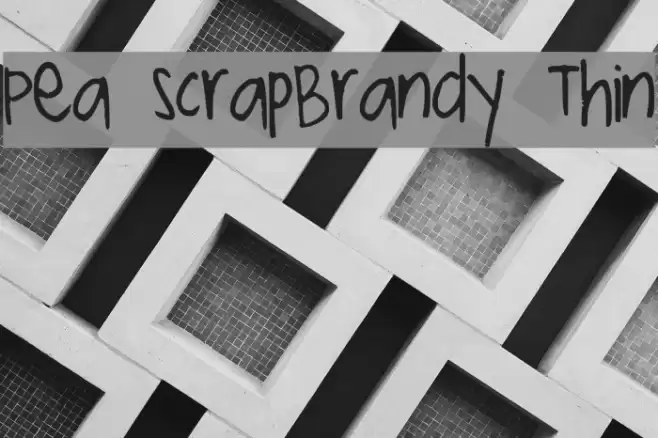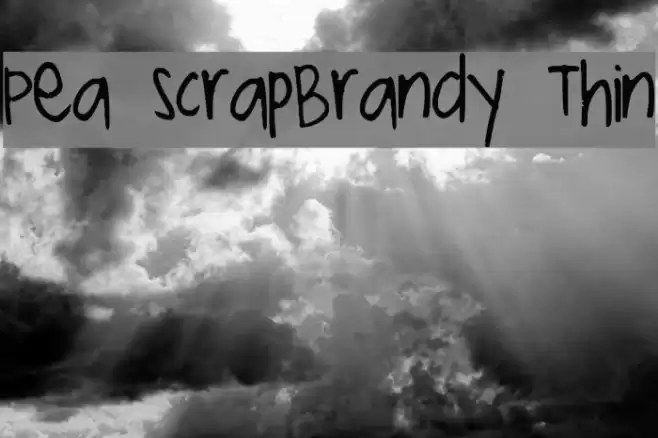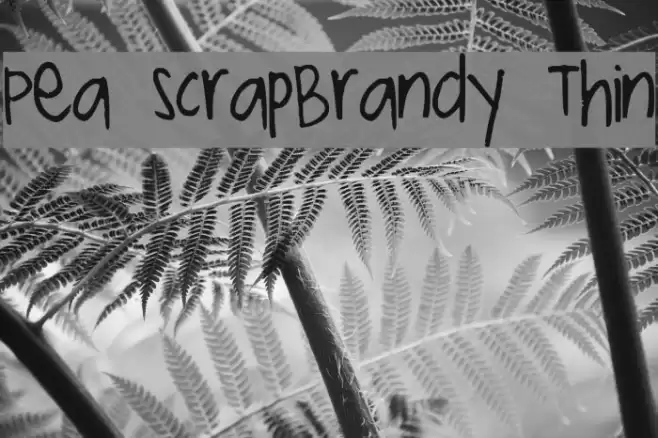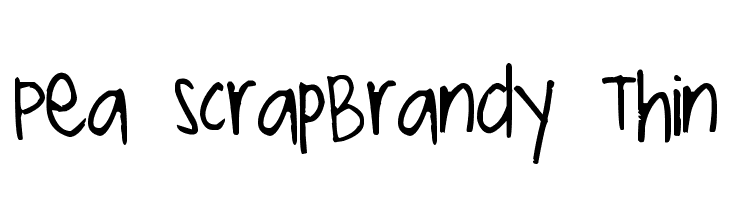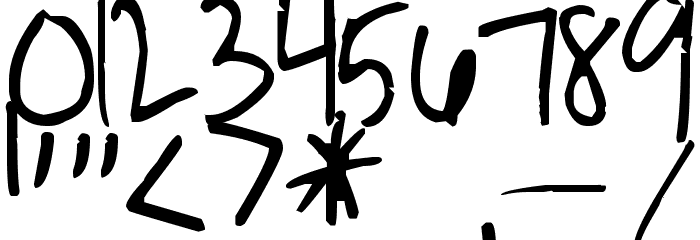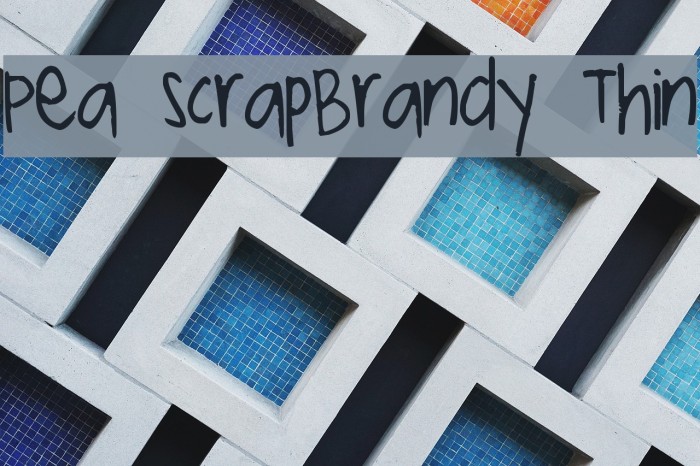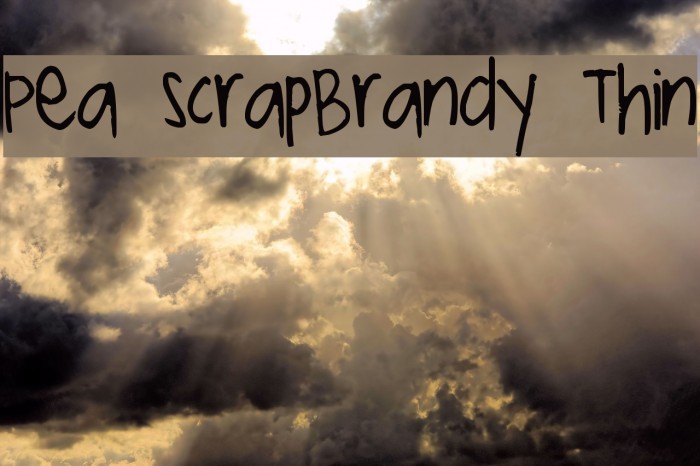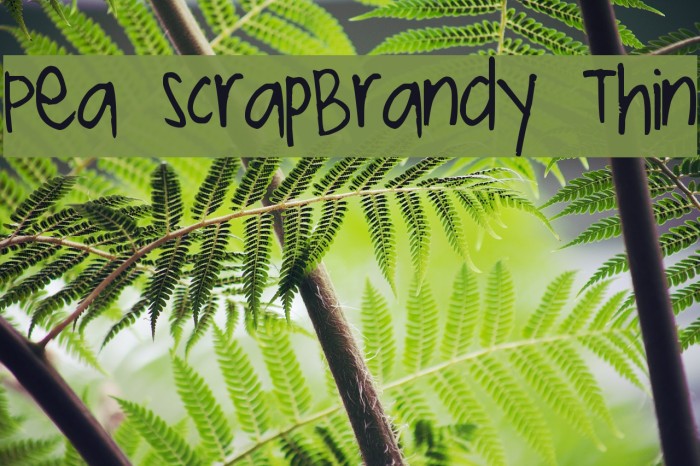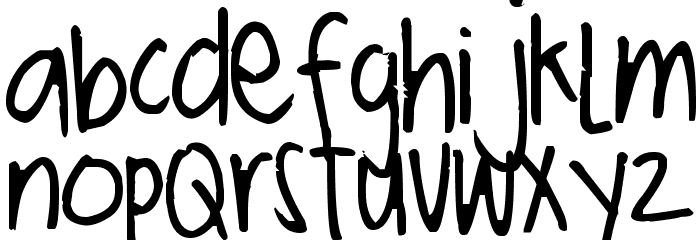
Pea ScrapBrandy Thin Font
Pea ScrapBrandy Thin Description
This font features a playful and casual handwritten style, characterized by its irregular strokes and informal appearance. The letters are slightly slanted, giving a dynamic and lively feel. The uppercase and lowercase letters maintain a consistent style, with rounded edges and varying stroke widths that add to its charm. The numerals and special characters follow the same whimsical design, making it suitable for creative projects. Its overall look is approachable and friendly, perfect for conveying a personal touch.
A playful, casual handwritten font with irregular strokes and a lively feel from Uncategorized fonts.
- Proposed Projects: Ideal for greeting cards, personal blogs, children's books, and informal branding.
- Overall Style: Casual
- Use Case: Headlines, Invitations, Personal notes